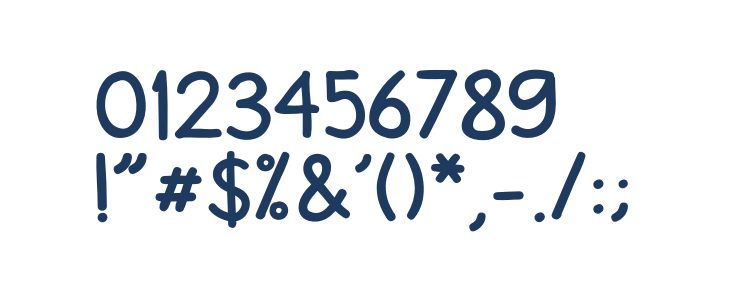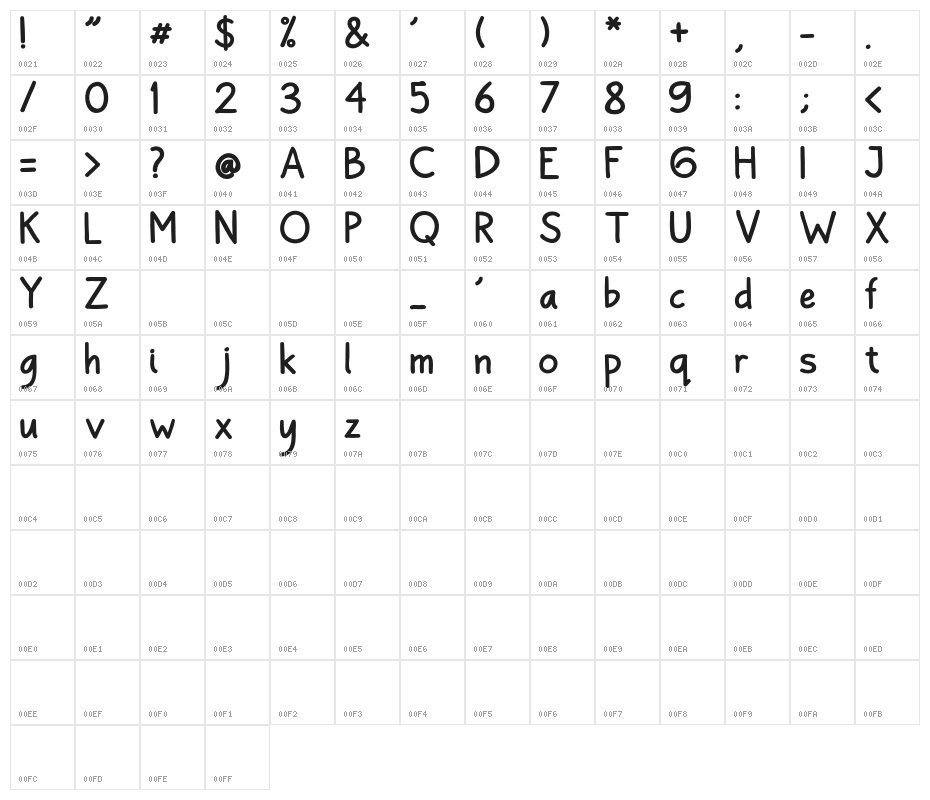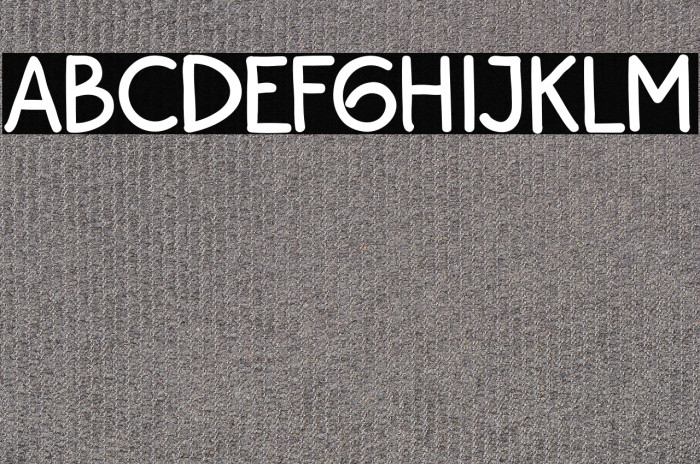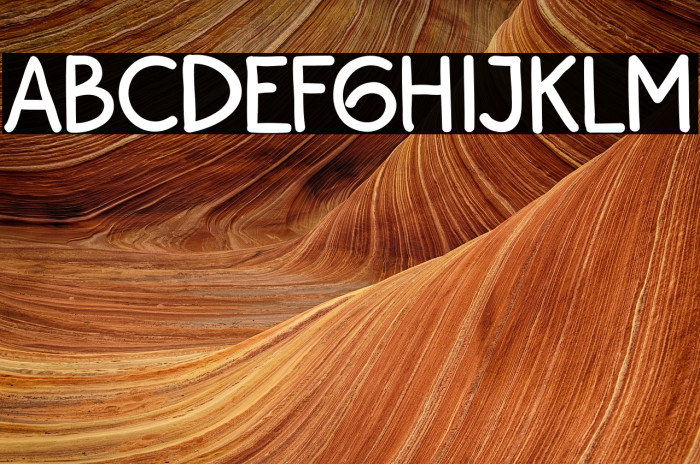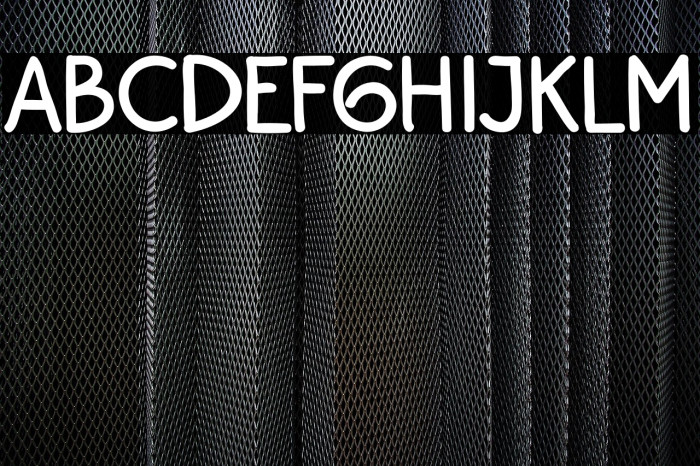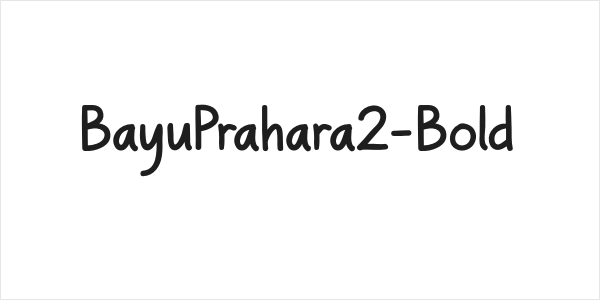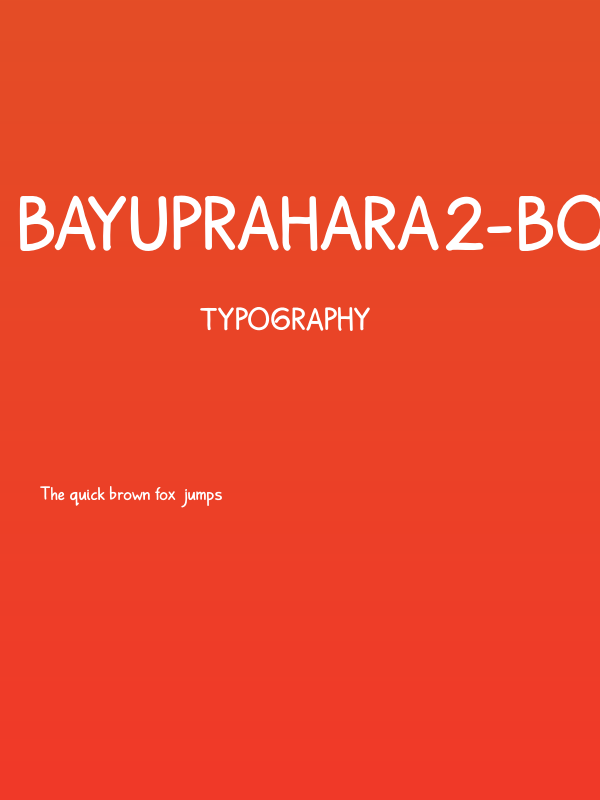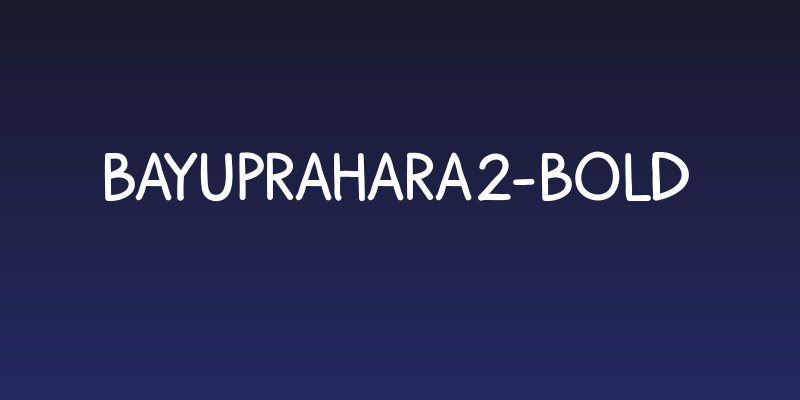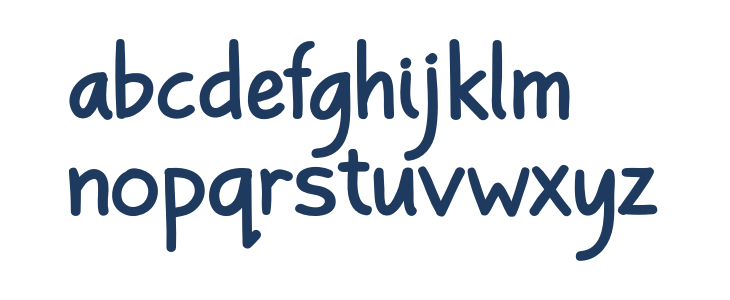
BayuPrahara2-Bold Font
BayuPrahara2-Bold Description
This font features a playful and informal style with rounded edges and a hand-drawn appearance. The characters are bold and slightly irregular, giving it a whimsical and friendly feel. The uppercase and lowercase letters maintain a consistent style, with the lowercase letters having a slightly more exaggerated curve. The numbers are clear and easy to read, matching the playful tone of the alphabet. Special characters are included, maintaining the same hand-drawn aesthetic. This font is ideal for projects that require a casual and approachable look.
| Proposed Projects | Ideal for children's books, playful branding, casual invitations, and creative posters. |